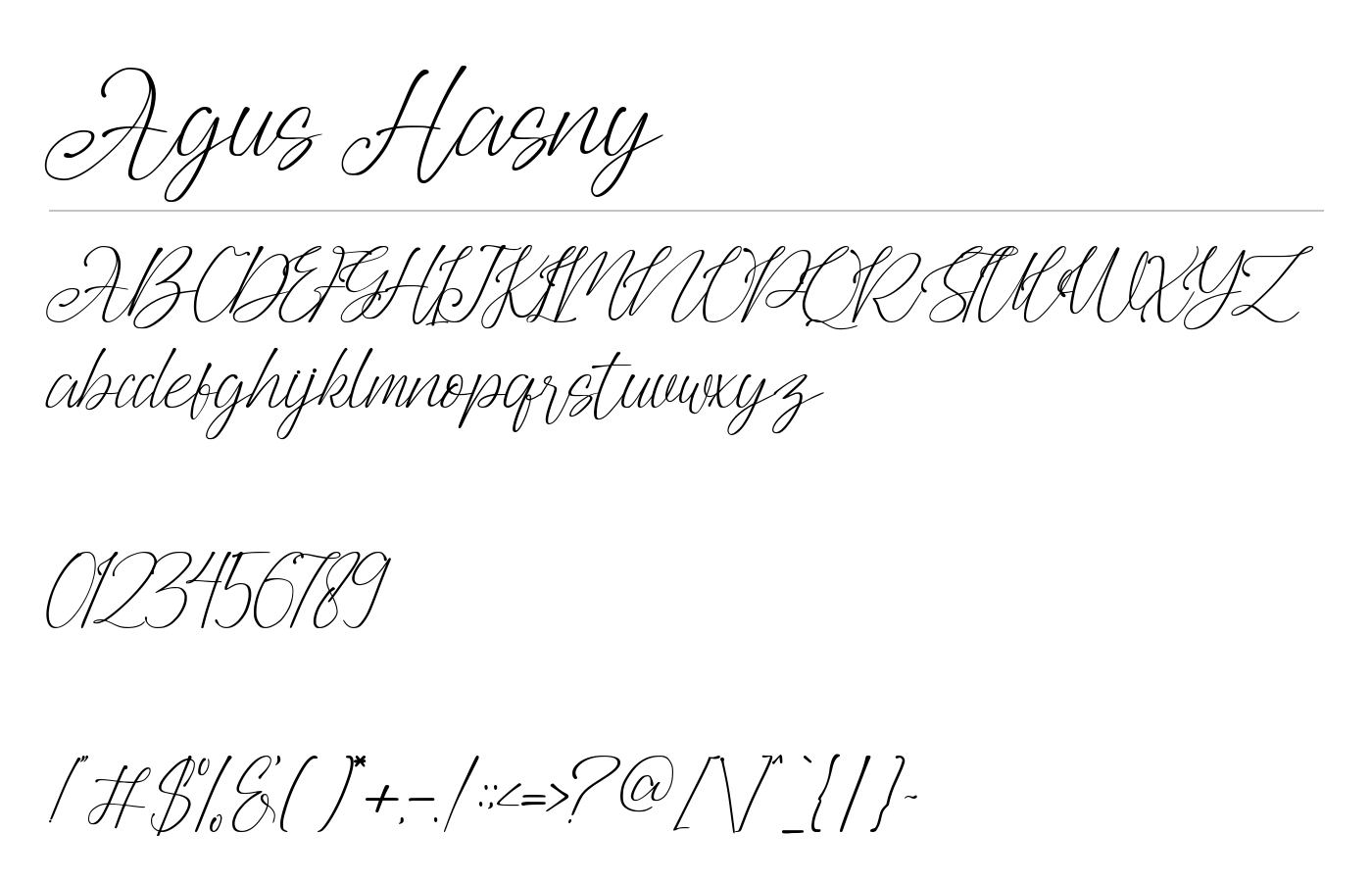
Agus Hasny is an elegant and delicate script font characterized by its flowing, handwritten style with thin, graceful strokes and high contrast. Its sophisticated, cursive letterforms evoke a refined and artistic feel, making it perfect for invitations, branding, and editorial projects that call for a touch of luxury and personal charm. This font works beautifully in contexts where an intimate, stylish, and classy impression is desired.
Agus Hasny Font
About Agus Hasny Font
| Font family | Agus Hasny Font |
| Designer | Virgiawan Listanto. 2020 |